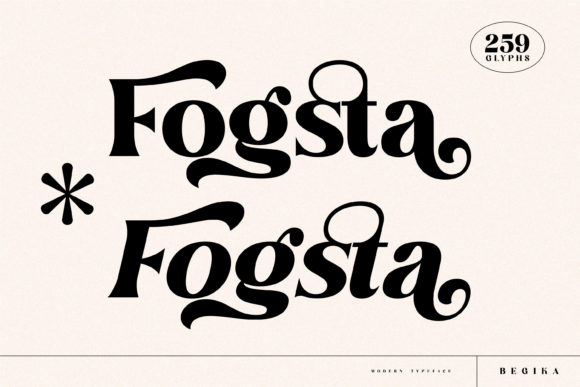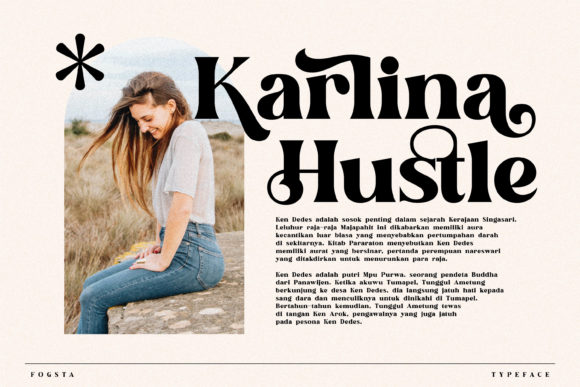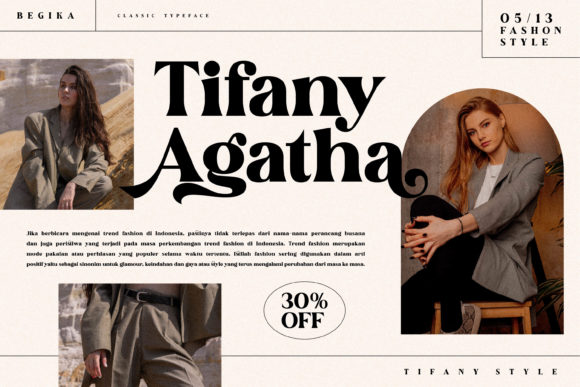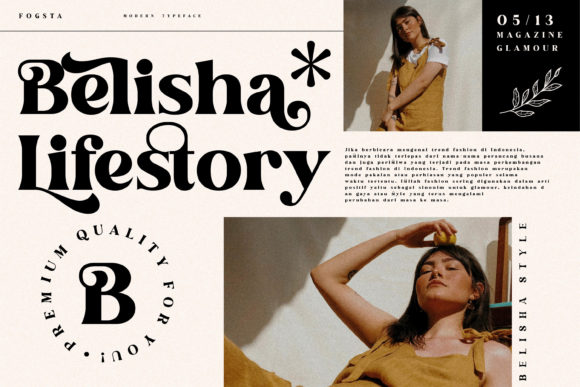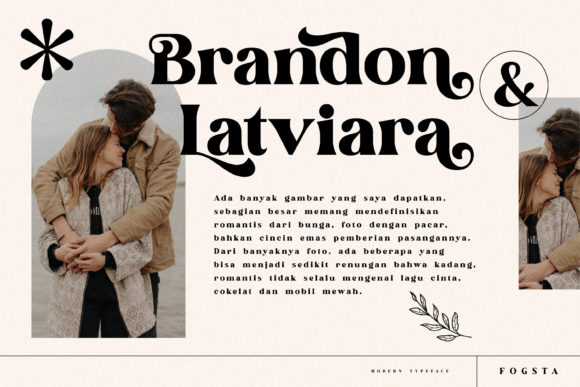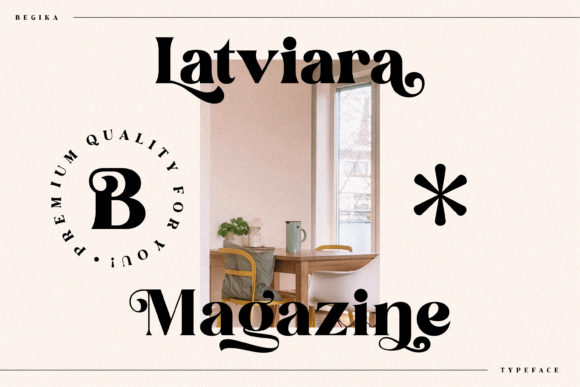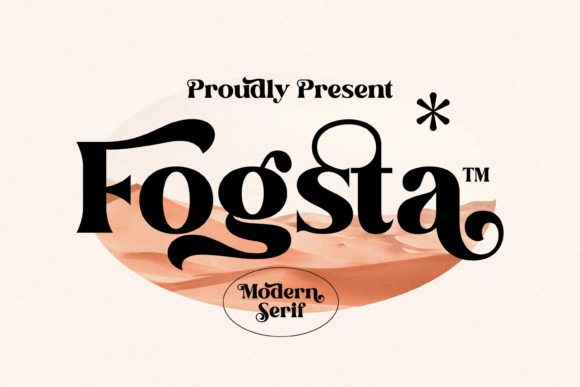
Fogsta Font: Elevate Your Designs with a Modern, Bold Twist
In the realm of typography, a font can make or break a design. For those seeking a modern, bold, and thick lettered serif font, Fogsta Font is an exceptional choice. This stunning font is not only visually appealing but also highly functional, making it a must-have for designers and crafters alike.
What Makes Fogsta Font Stand Out?
Fogsta Font is a modern, bold, and thick lettered serif font that exudes confidence and sophistication. Its ravishing style is sure to capture attention and leave a lasting impression. Whether you’re working on a branding project, creating a logo, or designing a poster, Fogsta Font is the perfect companion.
Fogsta Font’s versatility knows no bounds. Its bold and thick lettering makes it perfect for:
- Logos and branding: Create a lasting impression with a bold, eye-catching logo that showcases your brand’s personality.
- Posters and flyers: Grab attention with a striking title or heading that sets the tone for your message.
- Packaging design: Add a touch of sophistication to your product packaging with Fogsta Font’s elegant serif style.
- Digital graphics: Use Fogsta Font to create stunning social media graphics, blog headers, and more.
Why Choose Fogsta Font?
With so many fonts available, why choose Fogsta Font? Here are just a few compelling reasons:
- Unique style: Fogsta Font’s modern, bold, and thick lettered serif style sets it apart from more traditional fonts.
- High-quality design: Fogsta Font is crafted with precision and attention to detail, ensuring a professional finish.
Tips for Using Fogsta Font
To get the most out of Fogsta Font, consider the following tips:
- Experiment with sizes: Fogsta Font’s bold style works well at a range of sizes, from large headings to smaller text.
- Play with colors: Take advantage of Fogsta Font’s versatility by trying out different colors and textures.
- Mix and match: Combine Fogsta Font with other fonts to create a unique and visually appealing design.
Fogsta Font is a game-changer for designers and crafters seeking a modern, bold, and thick lettered serif font. With its PUA encoding, ravishing style, and endless design possibilities, Fogsta Font is the perfect addition to your typography arsenal. Whether you’re working on a branding project, creating a logo, or designing a poster, Fogsta Font is sure to elevate your designs and leave a lasting impression.